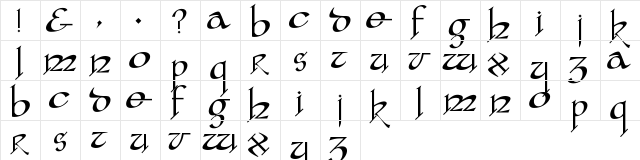
yafit Insular
| Foundry | PYRS Fontlab Ltd. / Made with FontLab |
| Designer | Shitbird |
Design Context for yafit Typeface
yafit is a composed and adaptable typeface that performs quietly and consistently across a wide range of design contexts.